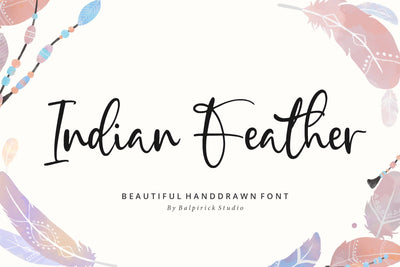
Indian Feather Beautiful Handdrawn Font
Proudly Present, Indian Feather Font.
Indian Feather is a Beautiful Handdrawn Font.
Indian Feather is a romantic and sweet calligraphy typeface with characters that dance along the baseline. It will add a luxury spark to any design project that you wish to create!